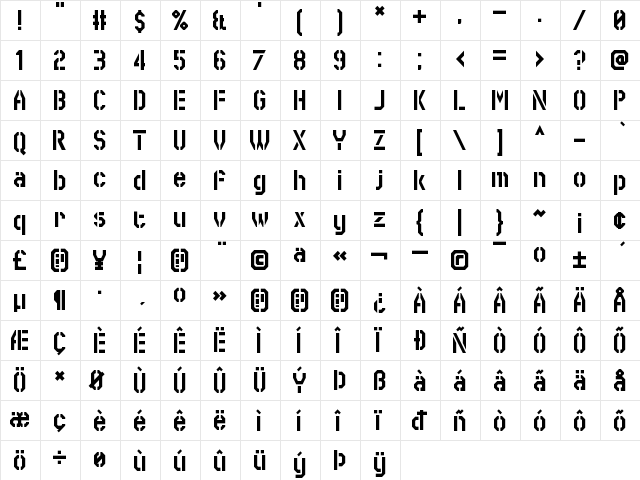
Swore Games Regular
Design Context for Swore Games Typeface
Swore Games is a composed and adaptable typeface that performs quietly and consistently across a wide range of design contexts.